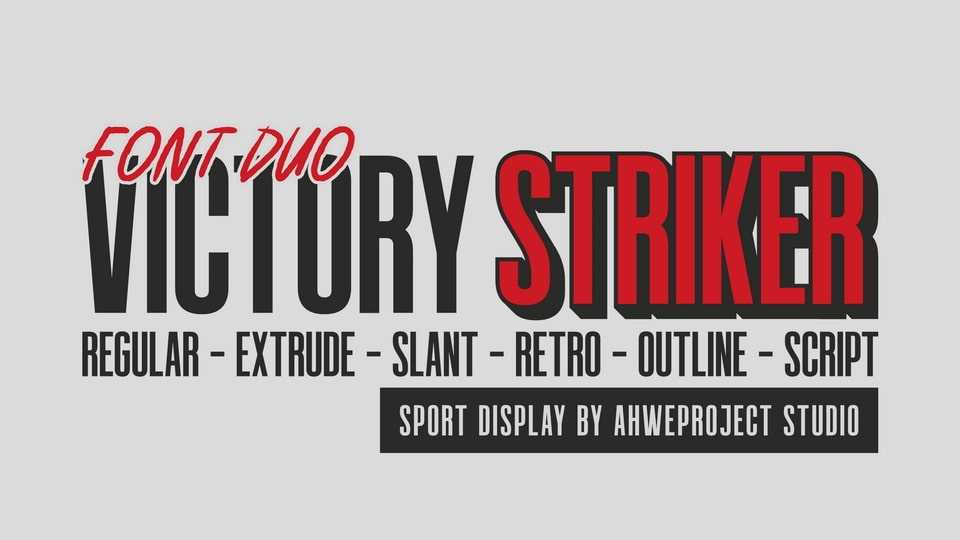
Download Victory Striker font, a bold and dynamic sports display typeface designed to bring power and impact to your projects, combining a strong, tall sans serif with a striking script.